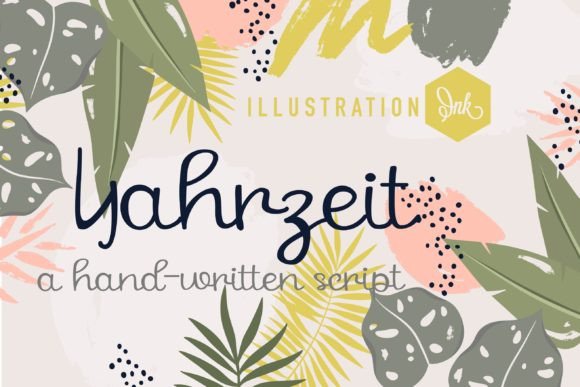
Embrace the elegance and sophistication of Yahrzeit Font, a captivating script font family that exudes an authentic handwritten charm. Indulge in the beauty of this meticulously crafted script, designed with a youthful flair and an upright cursive style that adds a touch of playfulness to your digital creations.
Experience the versatility of Yahrzeit Font, effortlessly adaptable to a wide range of design projects. Its bold and light versions provide endless possibilities for creating striking headlines, eye-catching logos, and heartfelt invitations. The carefully crafted characters of Yahrzeit Font dance across the page, evoking a sense of nostalgia and personal connection.
Unleash your creativity with Yahrzeit Font, the perfect choice for adding a personal touch to your designs. Its hand-crafted feel adds a human element, making your creations feel genuine and heartfelt. Whether you're designing wedding invitations, greeting cards, or social media graphics, Yahrzeit Font will elevate your work with its timeless charm and elegant appeal.
Immerse yourself in the world of Yahrzeit Font, a font family that captures the essence of handwritten beauty. Let your designs flow with the graceful strokes of this script font, conveying your messages with a touch of warmth and individuality. Embrace the artistry of Yahrzeit Font and elevate your designs to new heights of creativity.